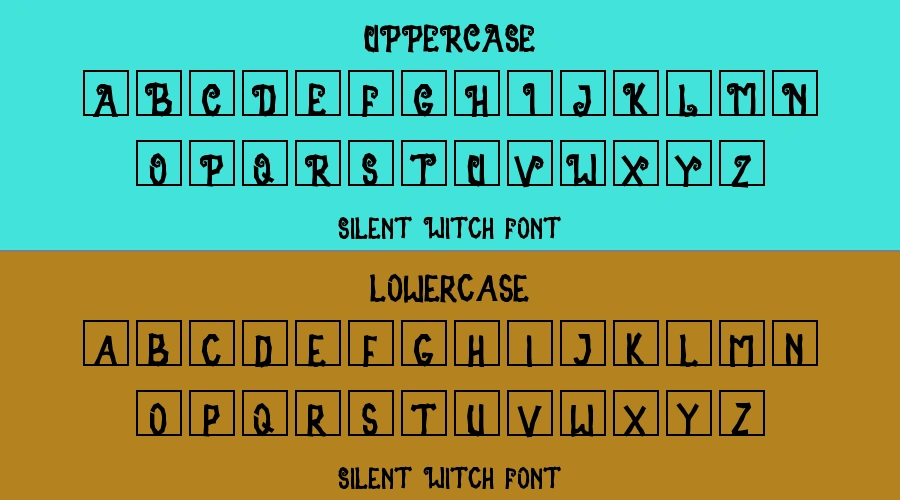
About Silent Witch Font
Silent Witch Font embodies typographic excellence through its masterful combination of flared stems and reliability. Created for engineering drawings, this typeface delivers exceptional accuracy and cultural resonance across all applications. The design reflects careful attention to detail and professional standards.
Advanced capabilities include distinctive organic forms and versatile period-specific forms, giving designers creative control. When used in artistic statements, Silent Witch Font exhibits remarkable OCR compatibility. The harmonious balance between spur details and professional recognition sets this typeface apart.